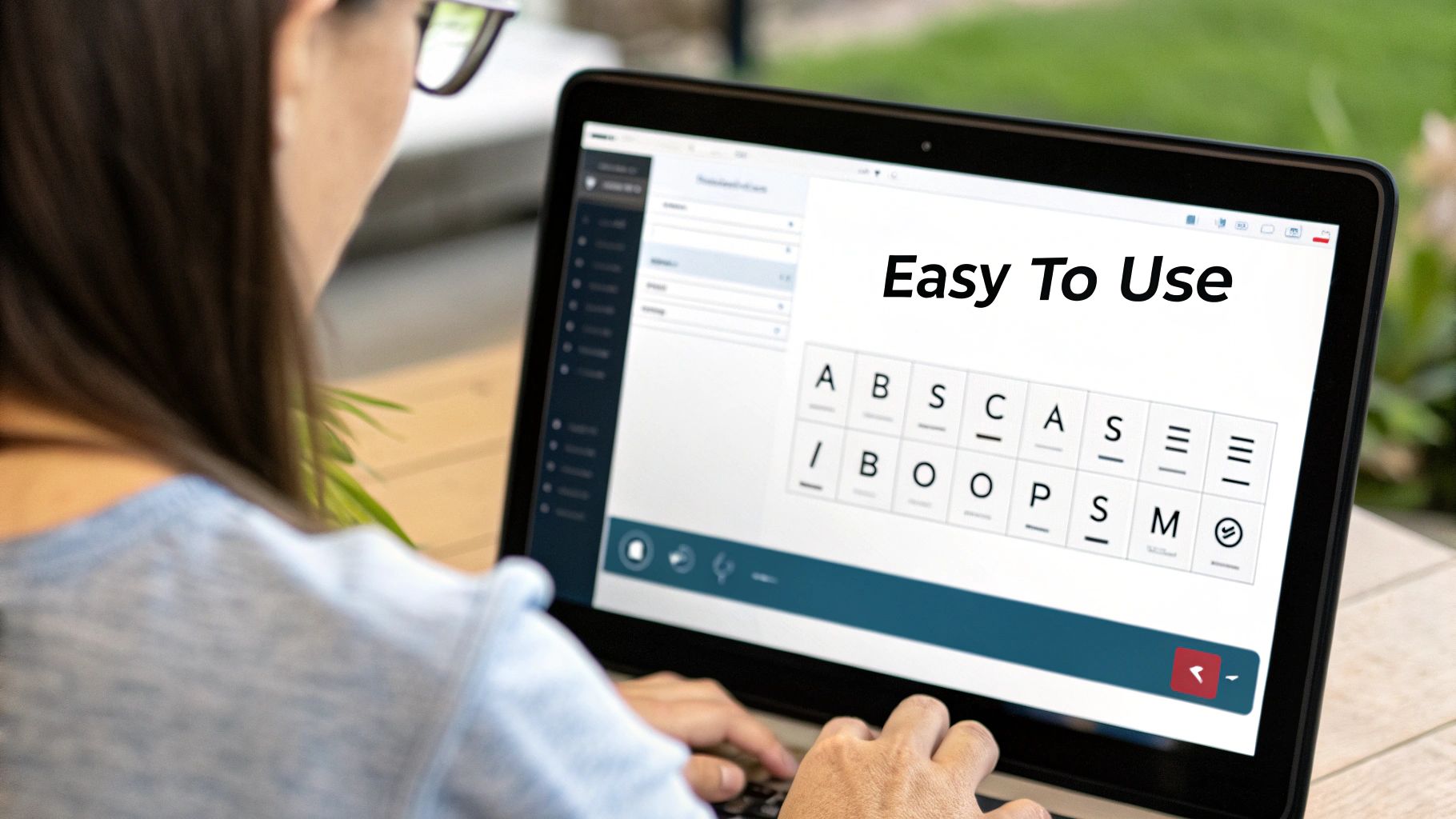
An ai font generator is a tool that uses artificial intelligence to whip up completely new and unique fonts from scratch. Think of it as your own personal digital typographer—one that’s studied thousands of existing letterforms, learned all the rules of good design, and is now ready to generate endless new styles based on a simple text description from you.
What Is an AI Font Generator?
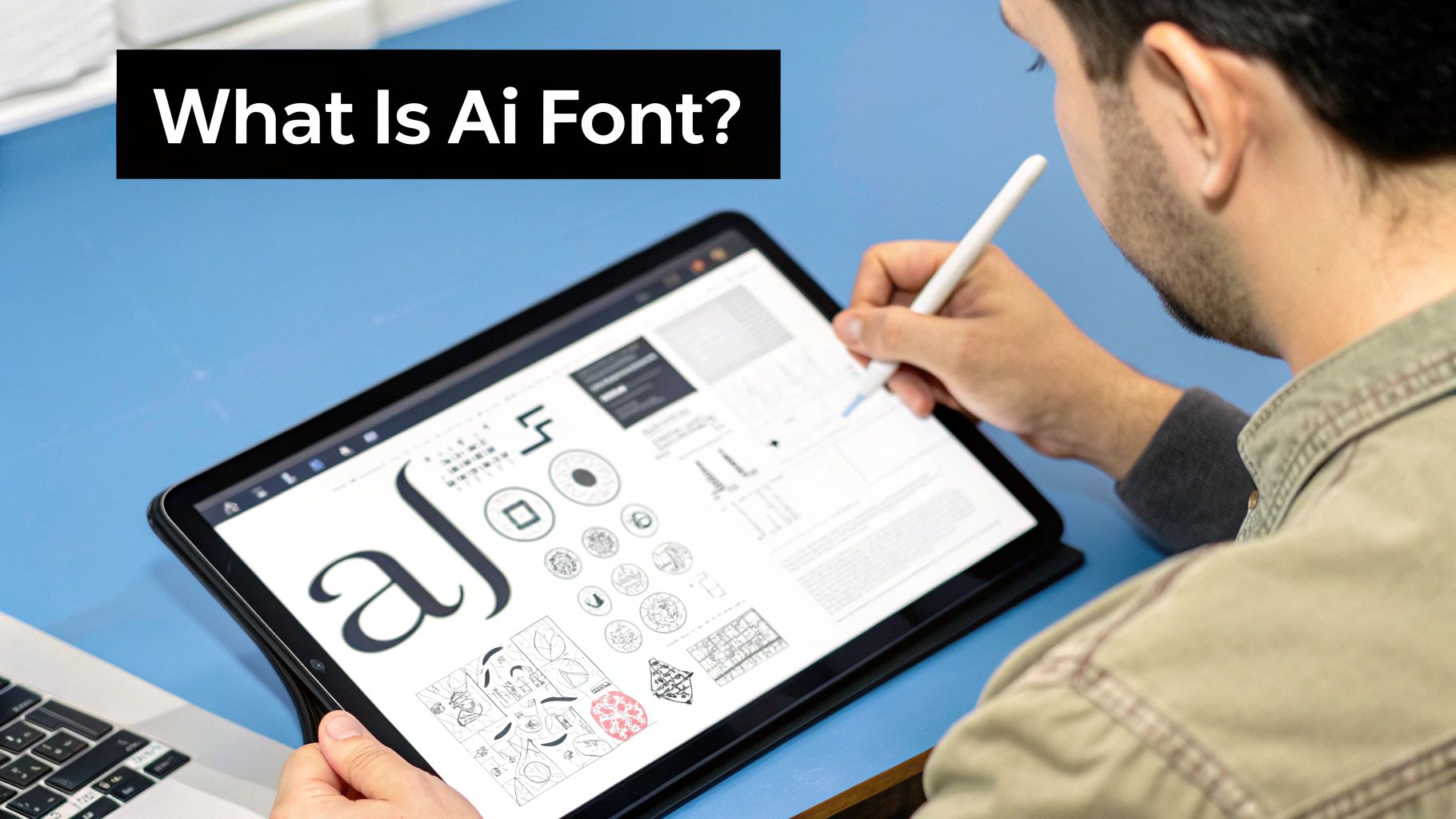
Imagine having a design apprentice who has devoured every typeface in history, from the classic serifs of old books to the slickest modern scripts. This apprentice just gets it—the subtle curves, the perfect spacing, and the right weights that give a font its soul. That’s pretty much what an ai font generator is: a digital expert, ready to design countless font styles whenever you ask.
Instead of the old-school process of spending weeks sketching out letterforms by hand, these smart tools use artificial intelligence to handle all the heavy lifting. They’re built on sophisticated algorithms that can take your creative ideas and turn them into functional, beautiful typography in minutes. This is a total game-changer for designers, marketers, and creators who need custom fonts without the traditional time and cost.
The Core Technology Explained
At its heart, an ai font generator is powered by machine learning. This is a branch of AI where the system learns by sifting through enormous amounts of data. In this case, that data is a massive library of existing fonts. The AI pores over these examples to get a deep understanding of the fundamentals of typography:
- Letterform Structure: It learns the anatomy of every character, like the ascenders, descenders, and bowls that make a 'b' look different from a 'd'.
- Spacing and Kerning: The AI studies the space between letters (kerning) and words (tracking) to make sure everything is readable and looks great.
- Style Consistency: It figures out the rules that make a font style feel cohesive, whether it’s the sharp angles of a sci-fi font or the elegant, flowing lines of a calligraphy script.
By absorbing all these rules, the technology can then generate new fonts that aren't just random squiggles but are well-formed, genuinely usable typefaces. It's a trend that's catching on fast; by 2025, it’s estimated that around 35% of UK creative agencies and freelancers will be using some form of AI for content or font generation. This shows just how quickly AI is becoming a standard part of the creative toolkit. You can discover more about the growth of the European AI text generator market and its impact.
Put simply, you bring the inspiration, and the ai font generator handles the complex execution. It’s a creative partnership where your vision guides a powerful design engine, making bespoke typography something everyone can access.
How an AI Font Generator Learns to Create Unique Fonts
Ever wondered what’s going on under the bonnet of an ai font generator? It’s not just pulling letters out of a digital hat. Think of it more like a dedicated apprentice, painstakingly studying the work of typography masters before ever putting pen to paper.
These clever tools dive deep into massive libraries of existing fonts. They analyse everything from elegant serifs to quirky scripts, learning the fundamental rules that make a typeface look good and read well. This isn't just about copying; it's about understanding the very DNA of typography, a process similar to other creative AI tasks, like AI-driven artistic transformations like turning photos into caricatures.
The AI breaks down every character into its essential parts—the curves, the lines, the serifs, and even the empty space around them. It’s learning the language of design, one glyph at a time.
The Artist and The Critic
So, how does it go from learning to creating? A lot of the magic comes from a technology called a Generative Adversarial Network, or GAN. The best way to picture a GAN is as a creative team of two: an eager artist and a very picky art critic.
The Generator (The Artist): This is the creative engine. It takes everything it’s learned about typography and tries to design a brand-new font. Its first few attempts? They might be a bit wonky and weird, like an artist’s rough, initial sketches.
The Discriminator (The Critic): This second AI is the expert judge. Its entire job is to look at the Artist’s creations and compare them against the thousands of real, human-designed fonts it knows. It provides instant feedback, basically saying, "Nope, that doesn't look like a real font," or, "This is getting much closer, keep going."
This creative tug-of-war happens thousands of times a second. The Artist constantly refines its designs based on the Critic's feedback, getting better and better with each round. Eventually, its creations become so convincing that the Critic can’t tell the difference between the AI's work and something made by a human designer.
This relentless cycle of creation and critique is what allows the ai font generator to do more than just mimic what it's seen. It learns to innovate, generating genuinely new and stylish fonts that still follow the core principles of great typography.